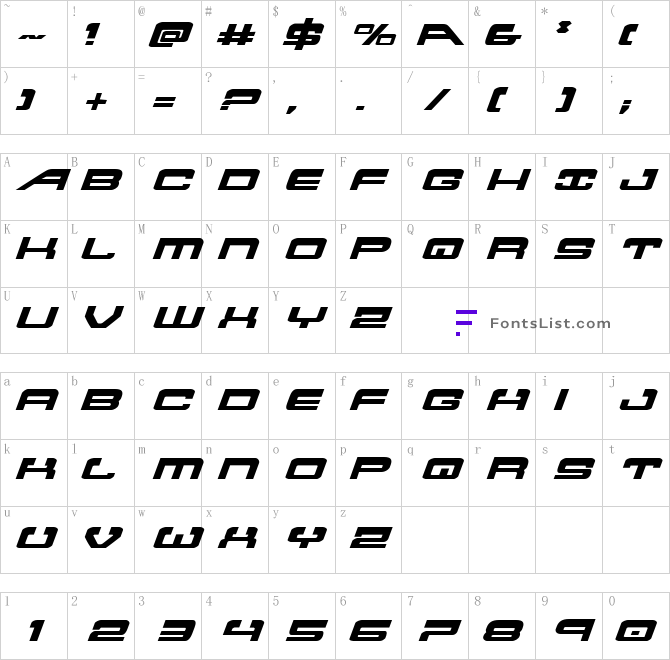
- Font Name:Atlantia Expanded Italic
Atlantia-Expanded-Italic.ttf is a very beautiful artistic font, Atlantia-Expanded-Italic.ttf is widely used in the design and printing of various books and pictures,Atlantia-Expanded-Italic.ttf has a strong visual impact,Atlantia-Expanded-Italic.ttf is a commonly used font in newspapers, magazines and books, and is used in posters, e-commerce Poster design, store design, logo design, font design and other fields.Atlantia-Expanded-Italic.